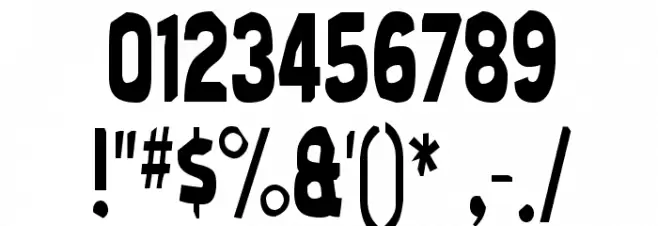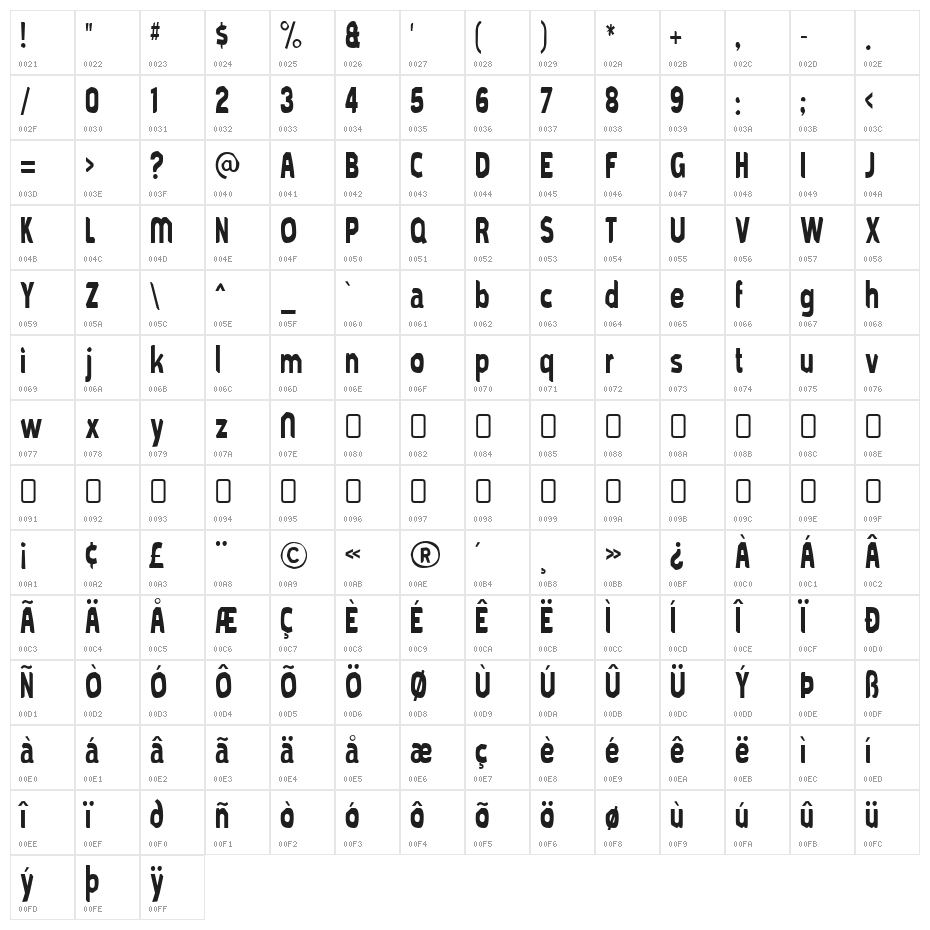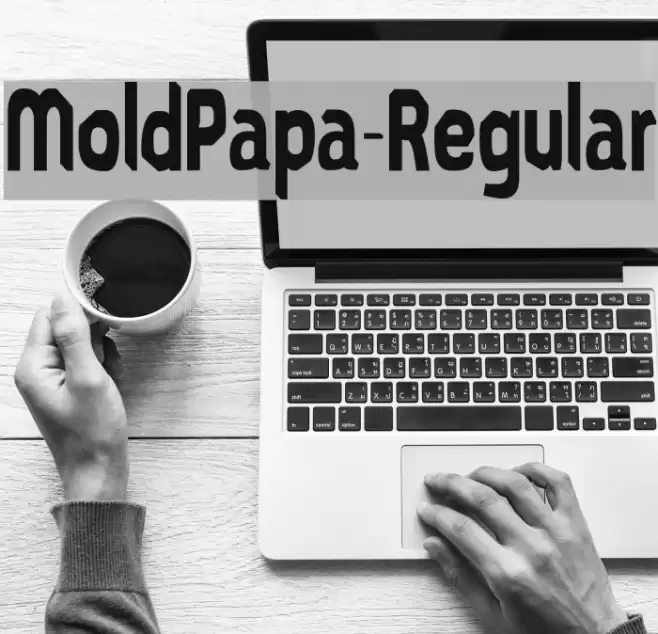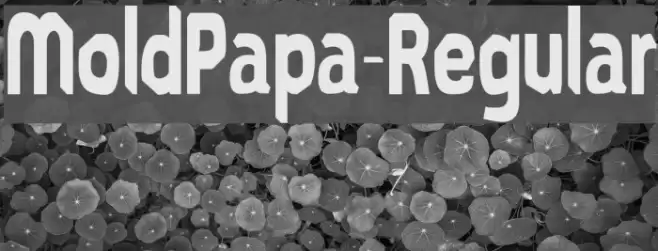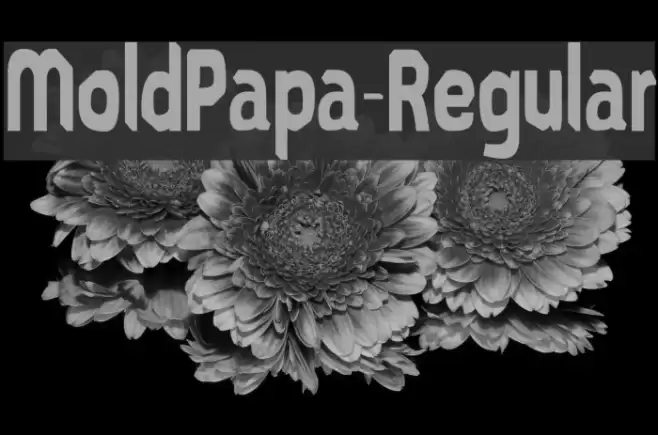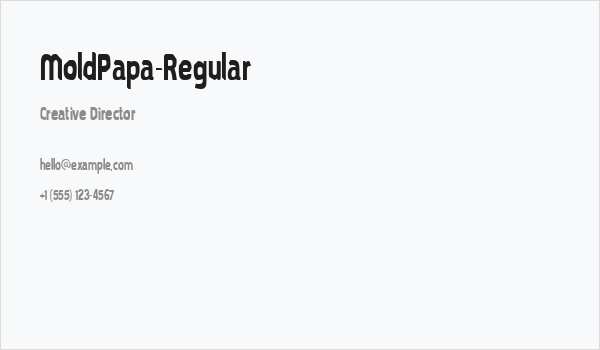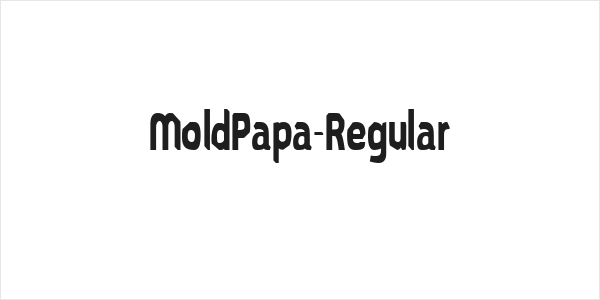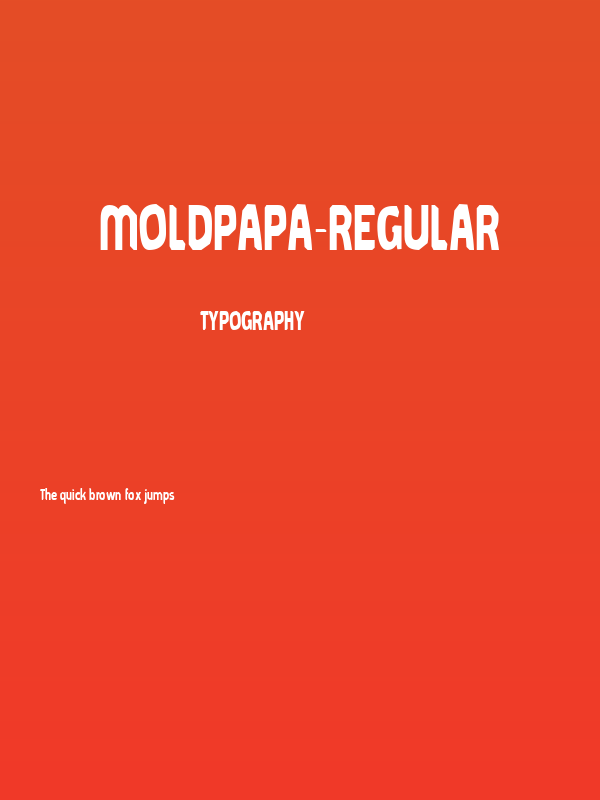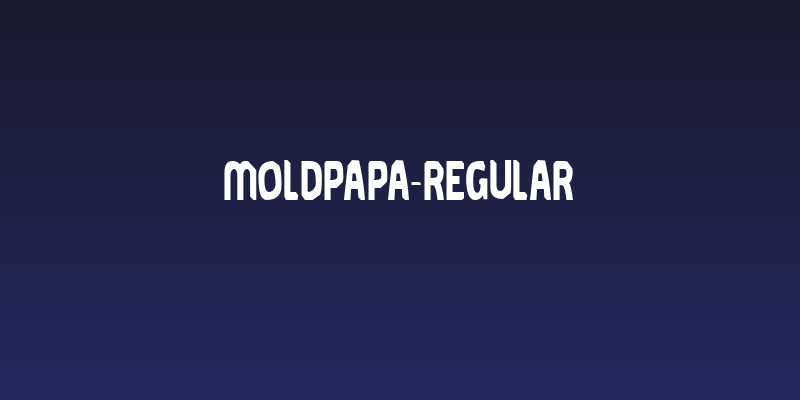
MoldPapa-Regular Font
MoldPapa-Regular Description
This font features a bold and robust design with a strong presence. The characters are slightly condensed, giving it a compact and efficient look. The uppercase and lowercase letters maintain a consistent style, with rounded edges that soften the overall appearance. The numerals are clear and easy to read, matching the boldness of the alphabetic characters. Special characters are well-integrated, maintaining the font's cohesive style. The font's design is modern and versatile, suitable for various applications where a strong visual impact is desired.
| Proposed Projects | Ideal for branding, posters, headlines, and any project requiring a strong, modern typeface. |